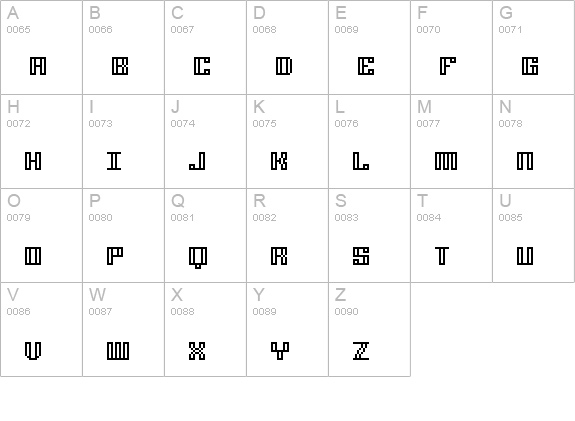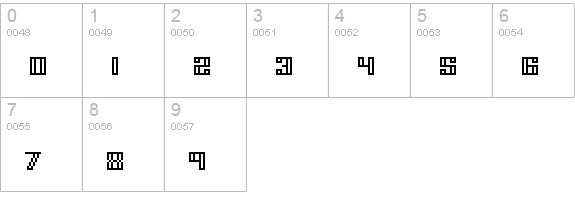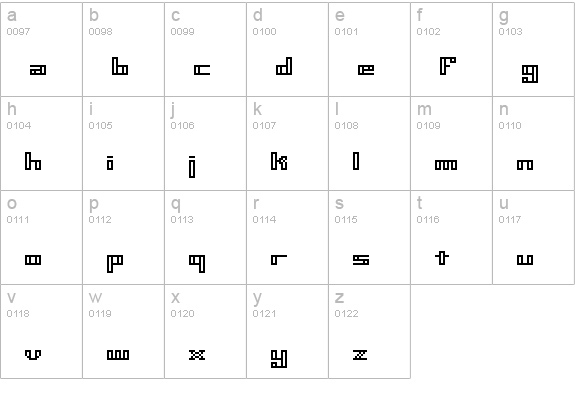
Mini Kaliber O TT BRK Font Details
Mini Kaliber O TT BRK is a stylish and modern font that exudes a sense of sophistication and elegance. This unique font features sleek lines and sharp angles, making it perfect for a wide range of design projects. Whether you're working on a branding campaign, editorial layout, or website design, Mini Kaliber O TT BRK will add a touch of class to your work. What sets Mini Kaliber O TT BRK apart is its versatility and adaptability. This font can be used in a variety of contexts, from professional documents to creative projects, and everything in between. Its clean and minimalistic design ensures that it will make a statement without overwhelming the overall design. The best part? Mini Kaliber O TT BRK is completely free to download at FontsMarket.com. This means you can easily incorporate this font into your projects without any cost. So why wait? Download Mini Kaliber O TT BRK today and elevate your designs to the next level.